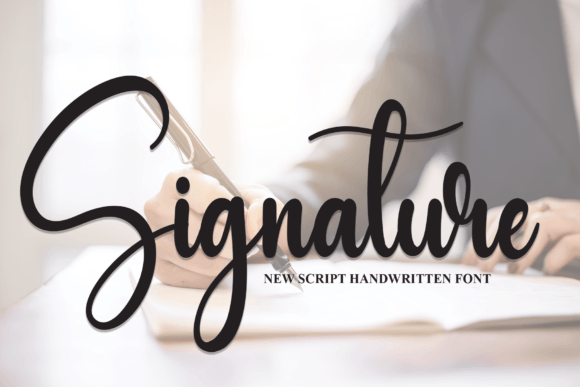
Elegant Handwritten Script for Various Designs
Signaturefont is a beautifully designed handwritten script that brings a touch of elegance and charm to any project. Its smooth and flowing strokes create a natural, personal feel that enhances your design’s appeal.
Versatile Use Across Creative Projects
This script font is perfect for a wide range of projects. It works wonderfully for greeting cards, wedding invitations, branding materials, headlines, social media posts, and other creative uses. Signaturefont adds sophistication and warmth wherever it appears.
Ideal for Romantic and Personal Designs
The graceful curves and fluid lines of Signaturefont make it ideal for projects that require a romantic or heartfelt tone. Whether you’re designing a wedding invitation or a branding logo, this font will help convey emotion and style.
Features of Signature Font
Smooth and elegant handwritten style
Suitable for print and digital applications
Adds a personal and romantic touch
Versatile for branding, invitations, and headlines
Why Choose Signature Font?
If you want your designs to feel authentic, warm, and elegant, Signaturefont is a perfect choice. It elevates simple text into an artful expression, making your projects memorable.
How to Use Signature Font Effectively
Combine Signaturefont with clean, simple backgrounds to highlight its elegance. Use it for titles, logos, or short quotes where the handwritten charm can shine. Pair it with complementary fonts for body text to create a balanced design.
Signaturefont is an elegant and versatile handwritten script that brings romance and sophistication to any creative project. Its timeless design makes it a valuable addition to your font collection, ready to enhance logos, cards, headlines, and more.